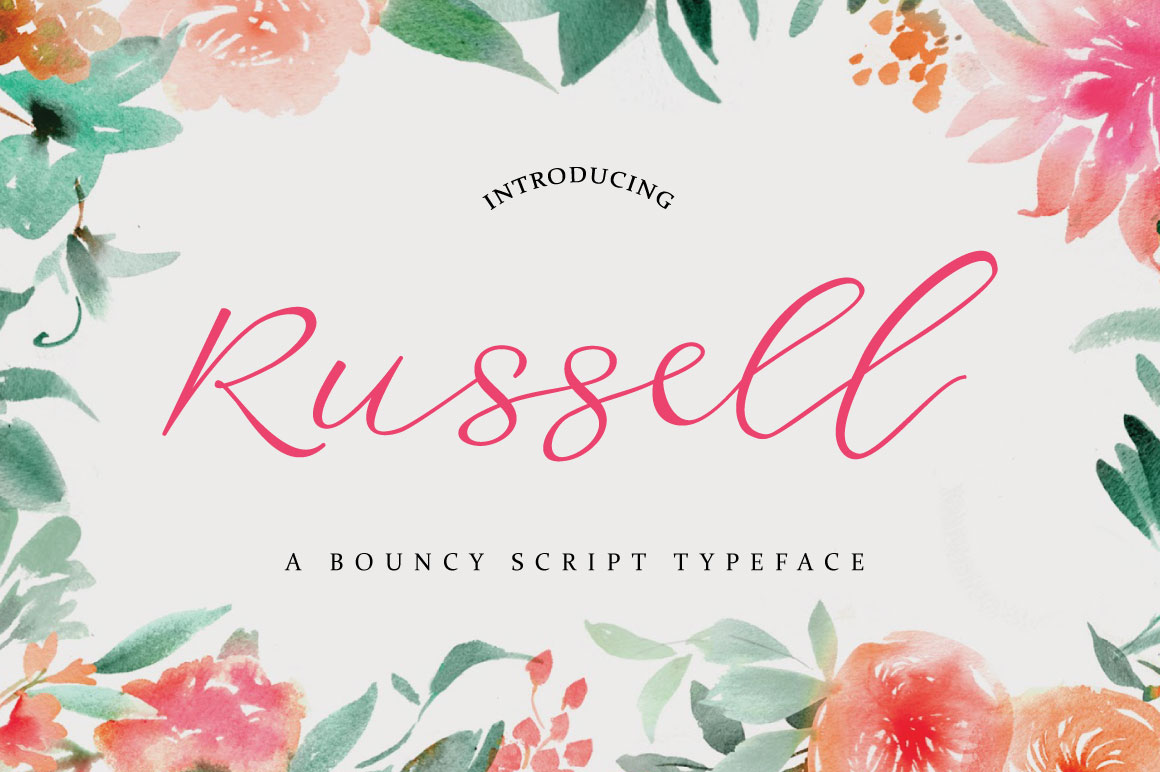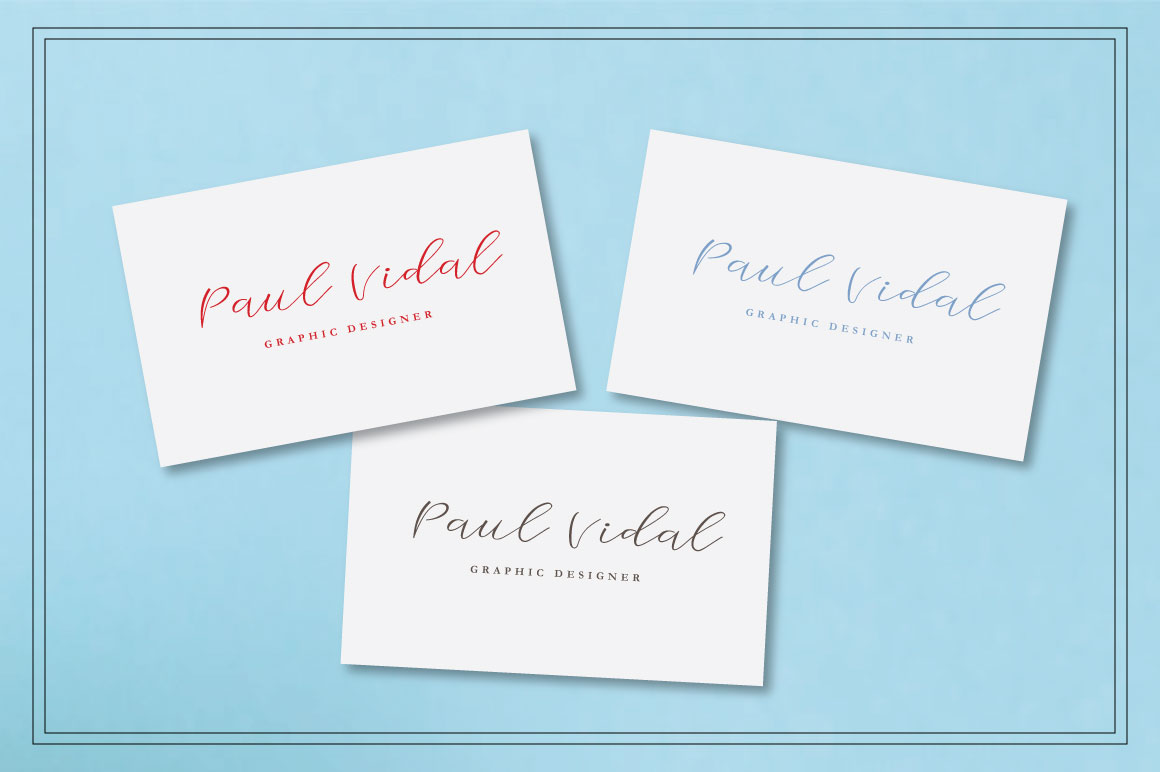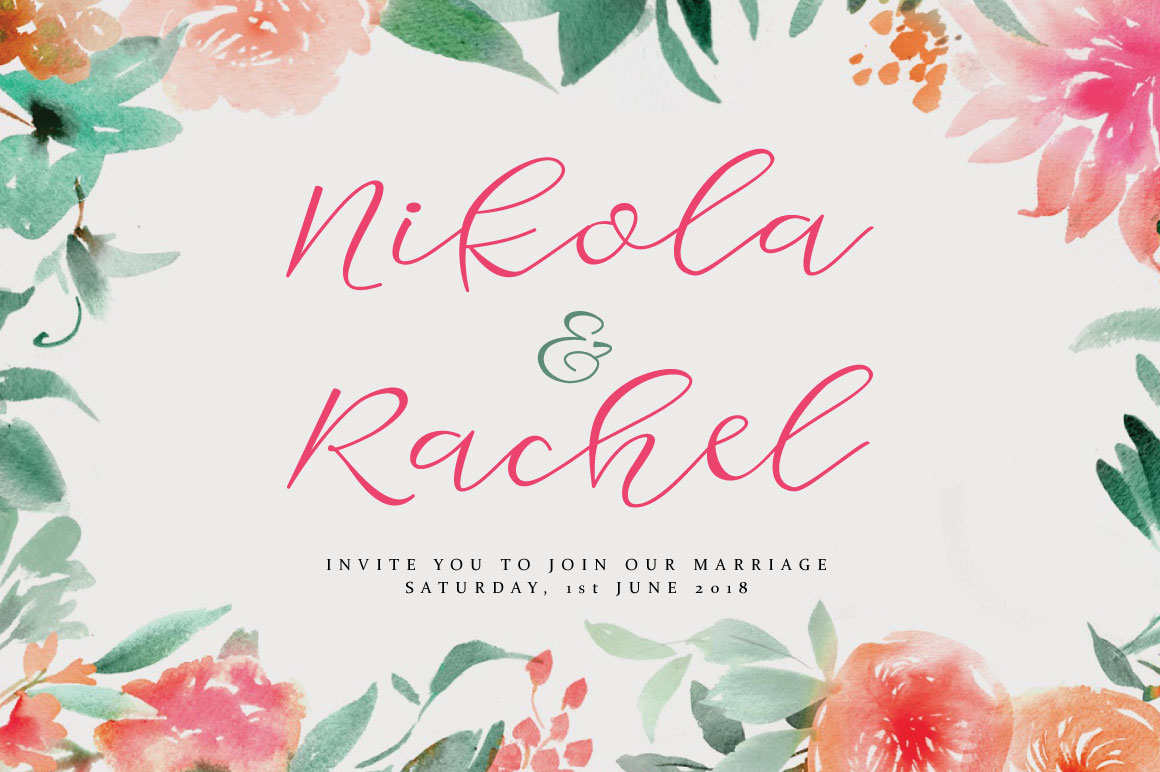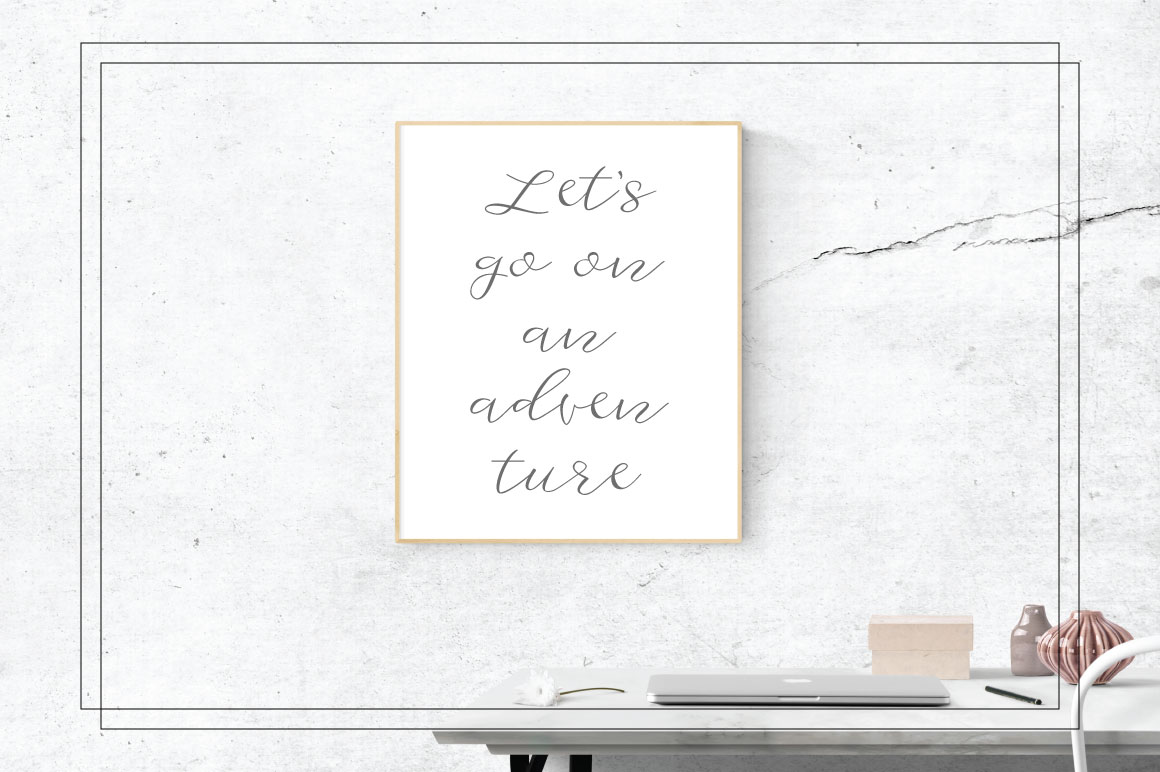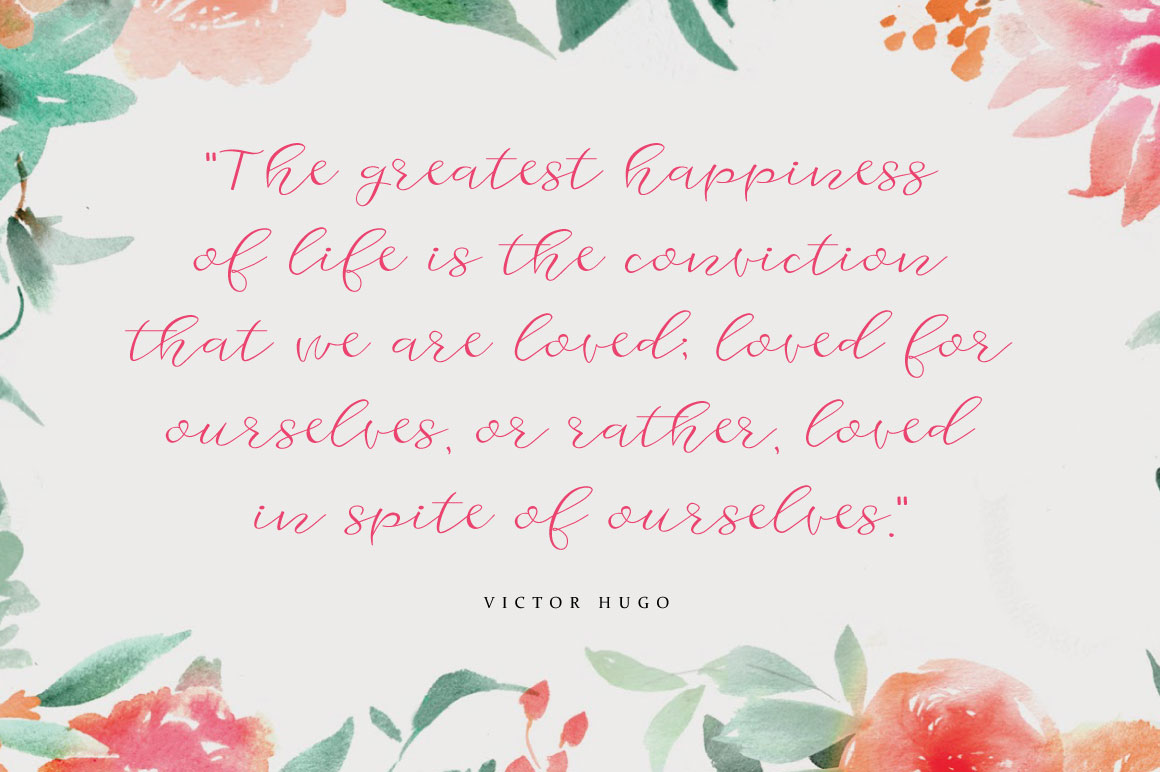
Russell Font
About Russell Font
Russell is a fun, bouncy handwritten script that is great for adding a quick personal touch to your designs.
It’s dynamic and has a well-ordered appearance which makes it very legible and useful for many projects. This includes also body text.